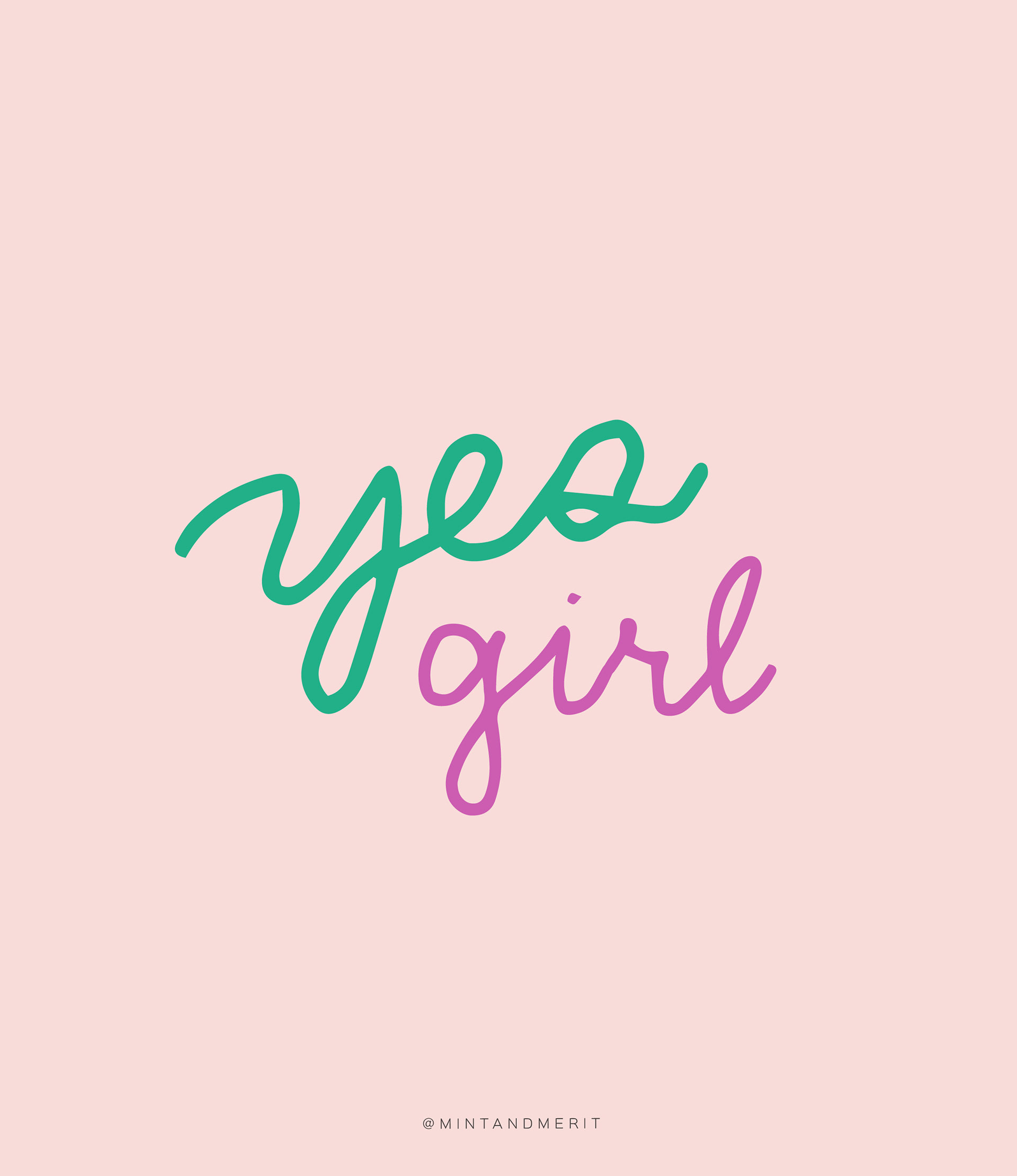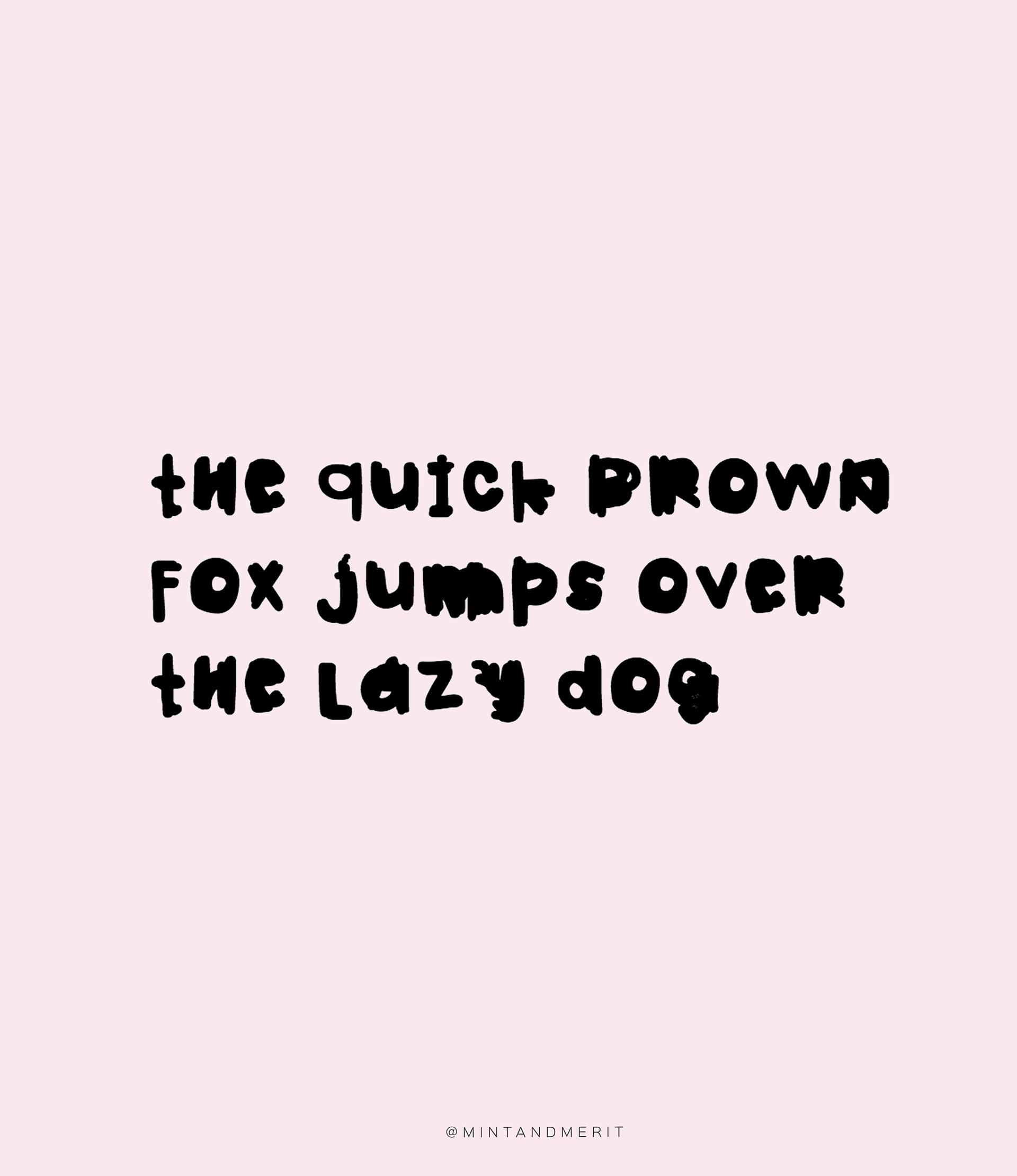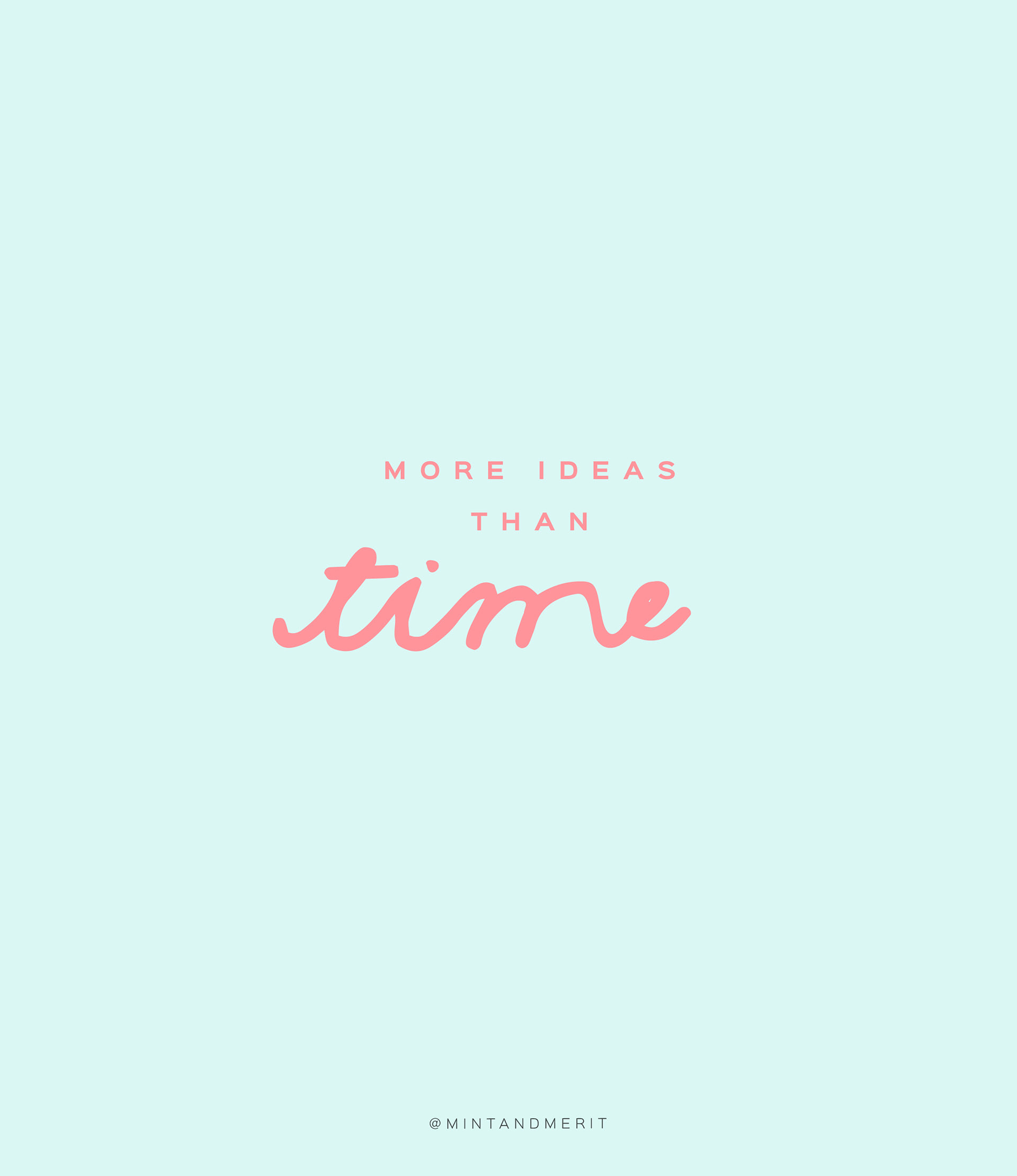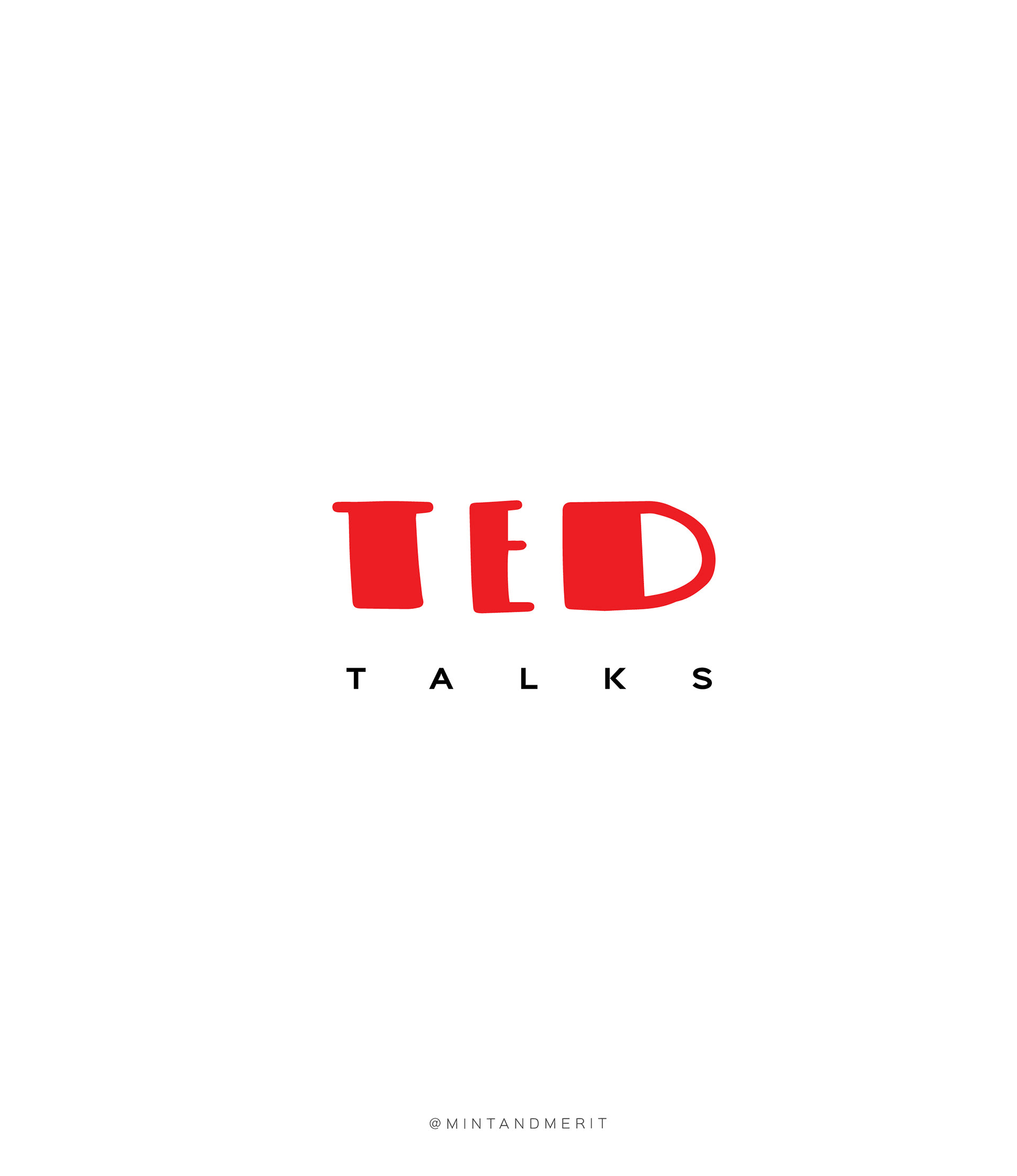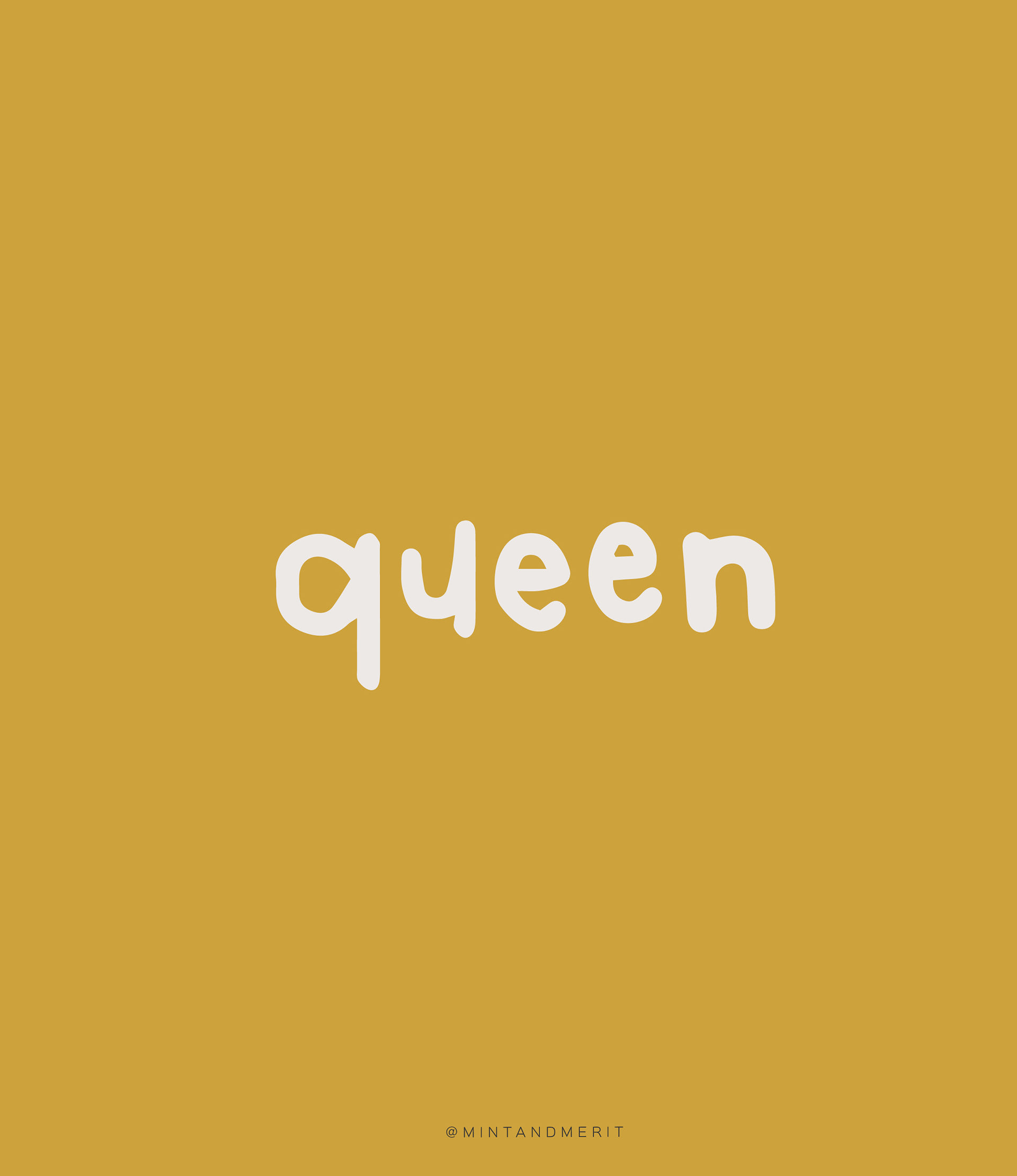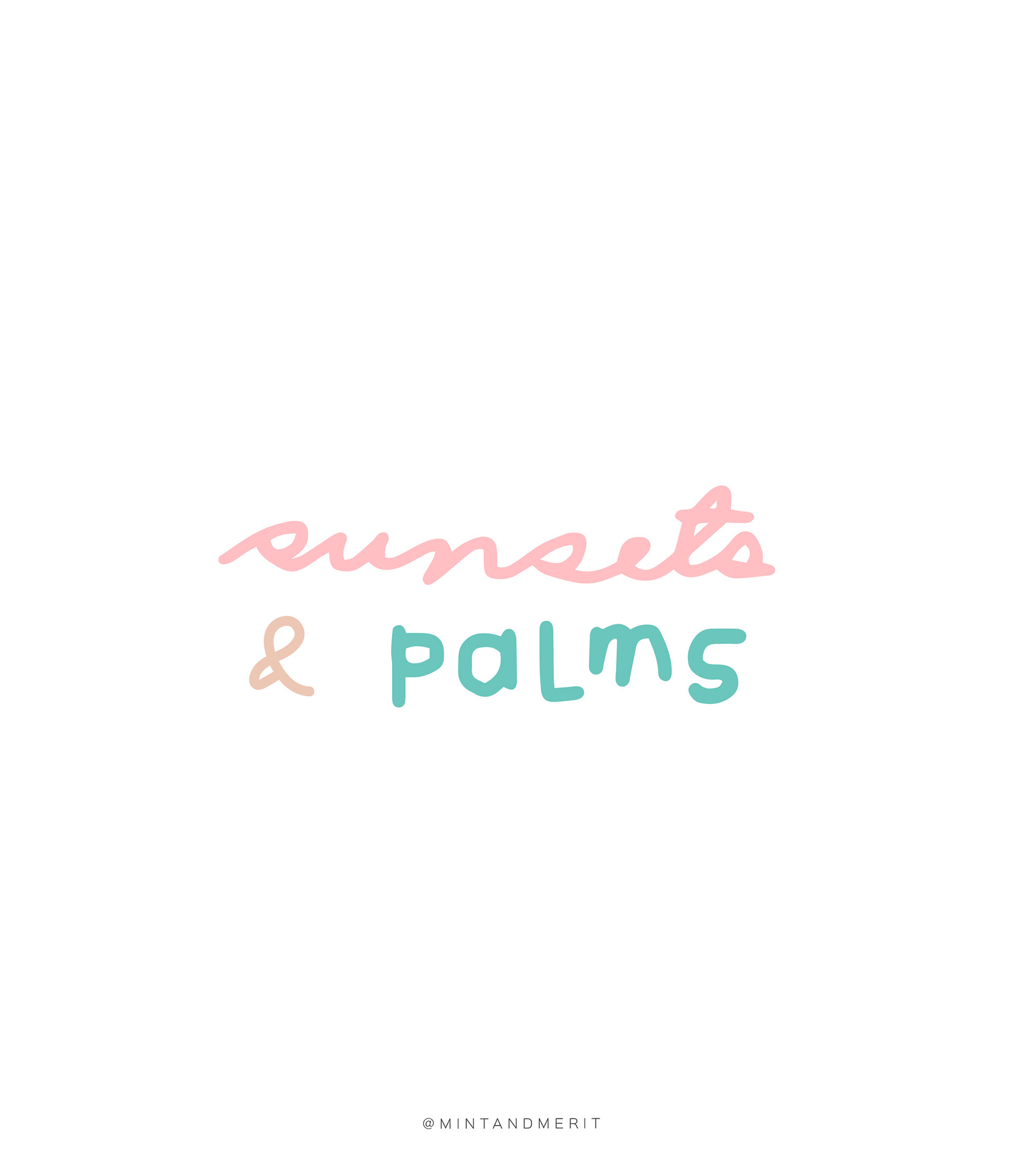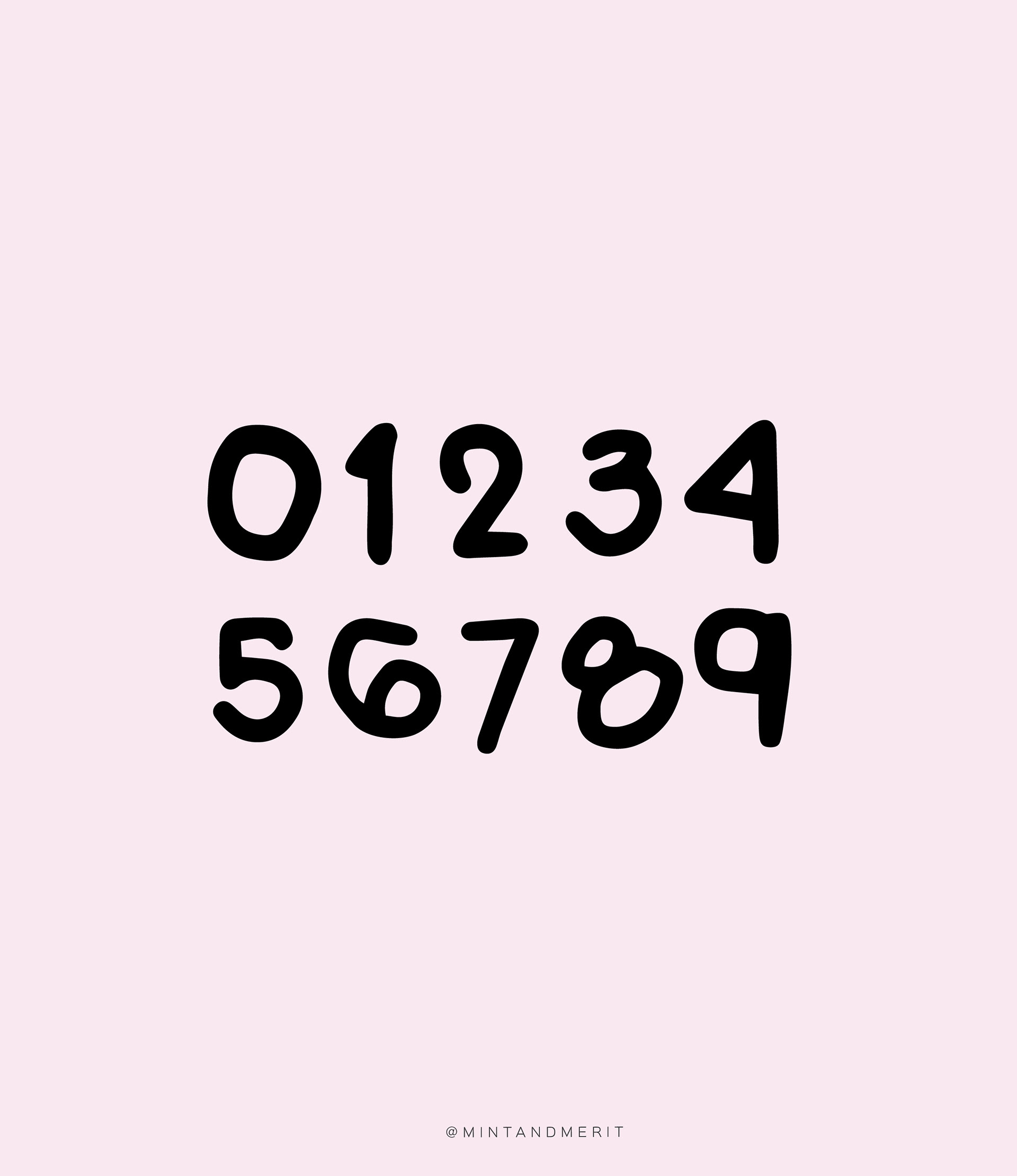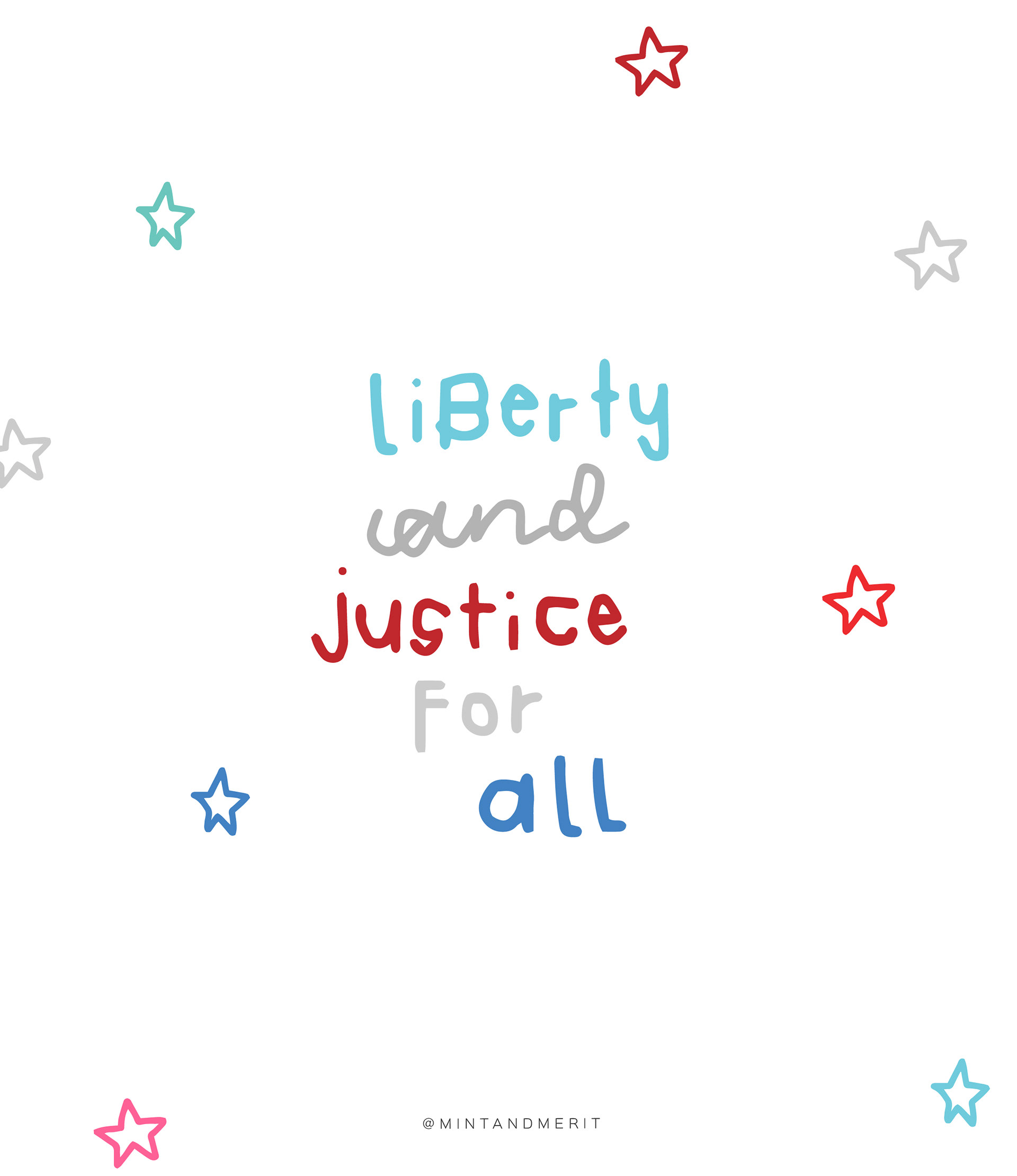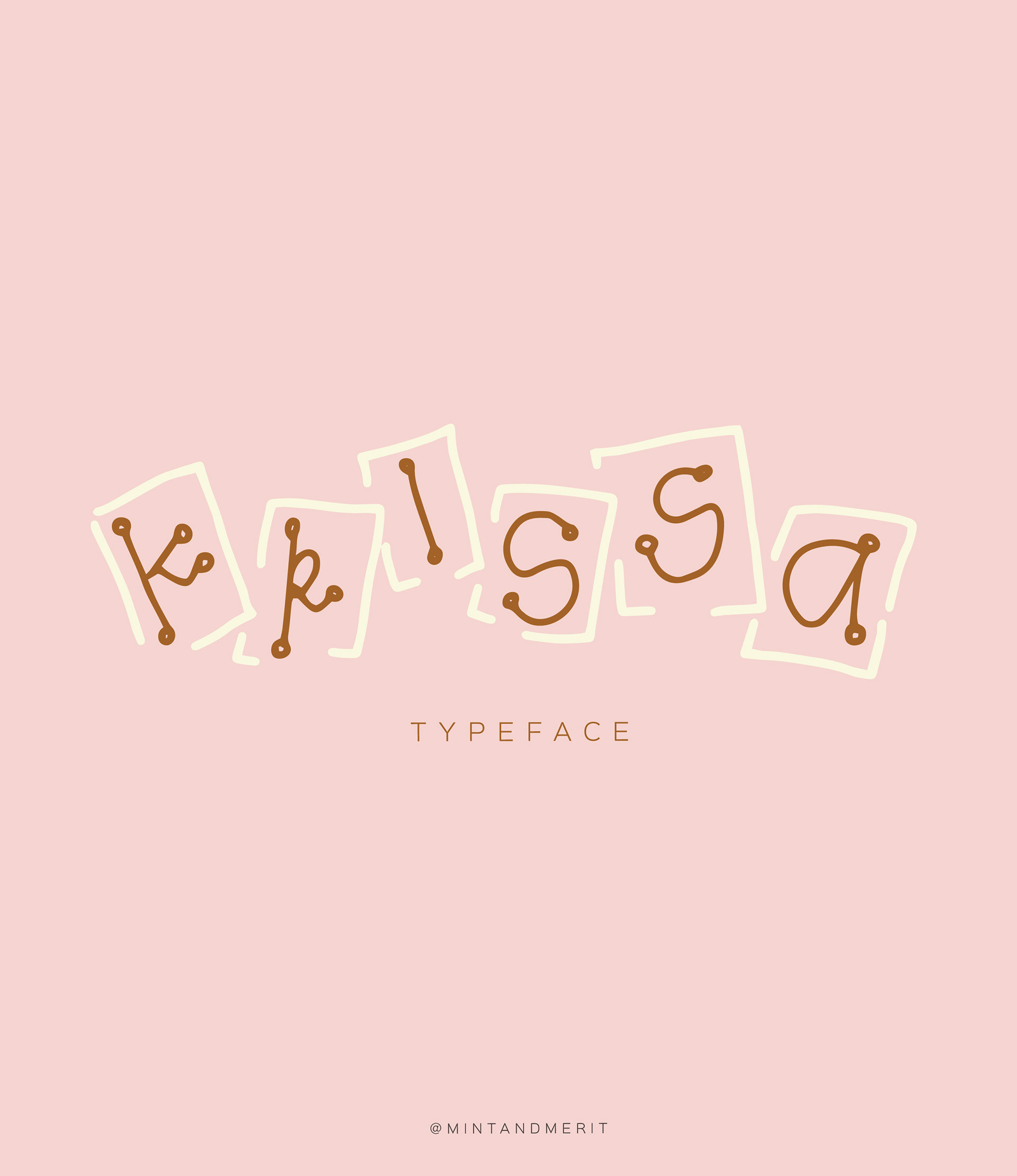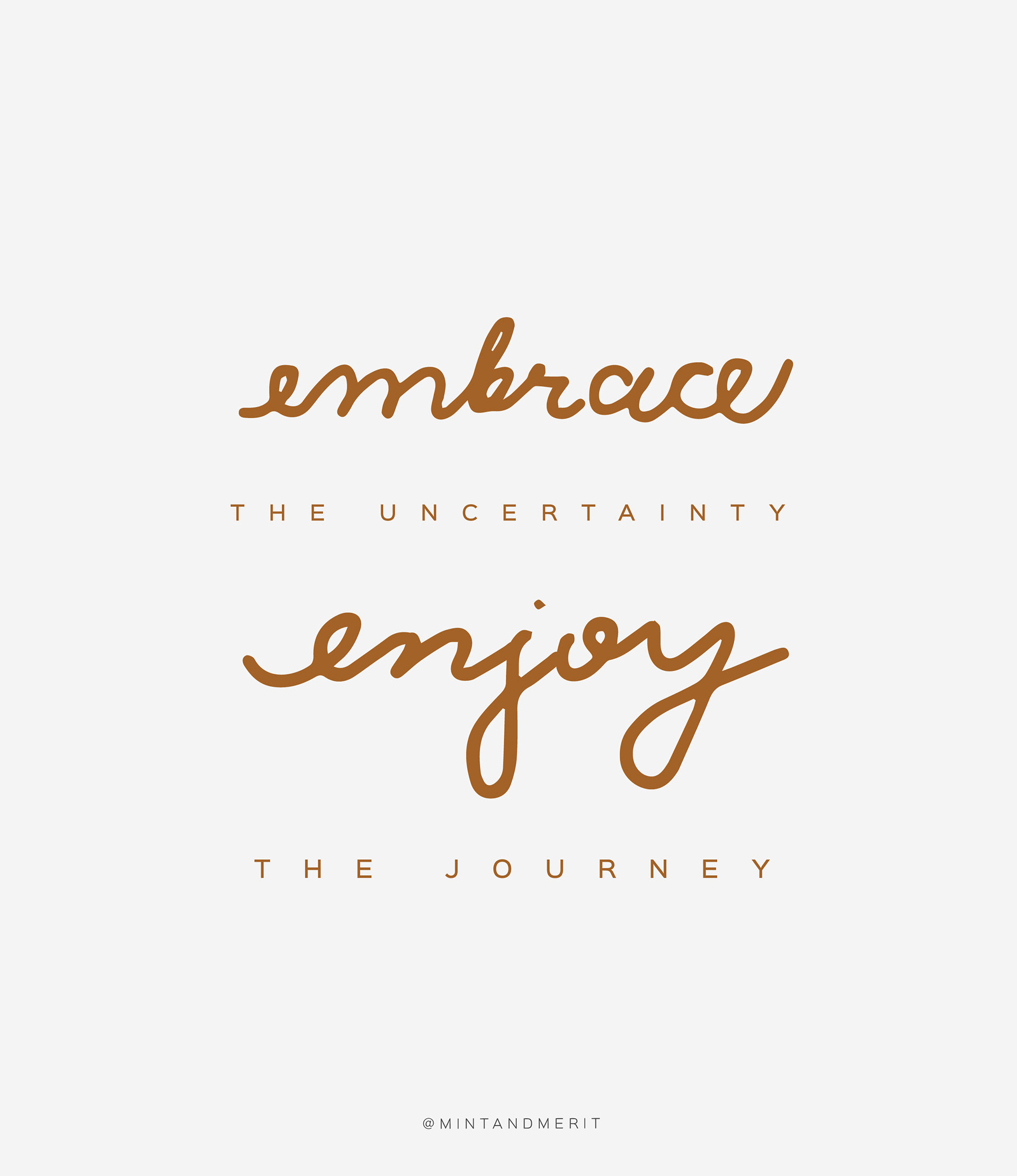
In 2017, I took on Elle Luna's THE 100 DAY PROJECT and took on the #100daysofcreatingthekrissafont challenge. - the story - My love for typography started in high school, when I became friends with Kristel Reyes. Krissa was her nickname we created by mashing our names together. Hand-written notes were our thing and I heart-eyed every single letter she wrote me. I envied how effortless and beautiful her handwriting was. It matched her personality . . . bold, playful, cheerful, & ohso beautiful! She passed away in a car accident in 2003, just weeks before our high school graduation. 💛 - the krissa typeface - It's a font [coming soon!] made with tons of love + tons of emotions + should only be used to be a force of good. #krissafont